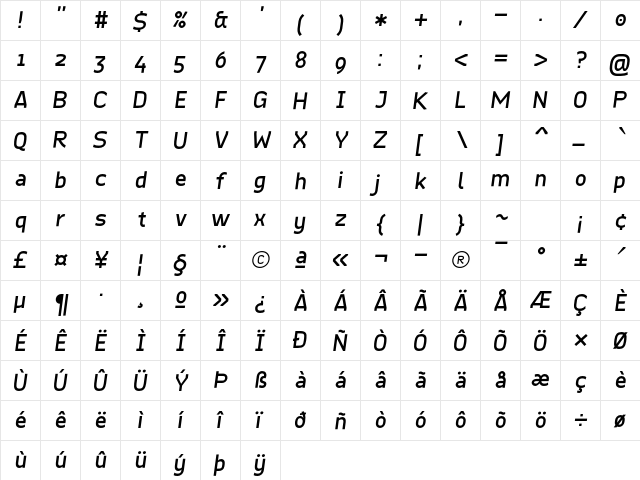
Quinone Oblique Font Preview
Quinone Oblique
Design Context for Quinone Typeface
Quinone takes a measured approach to typography — its balanced proportions and neutral character make it a reliable workhorse for both digital and print work. The dynamic lean of this cut emphasises speed and emphasis in any layout.